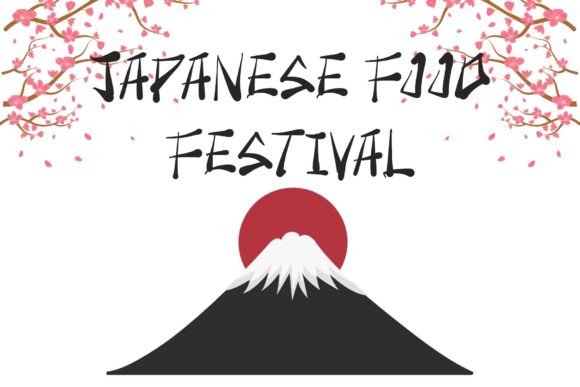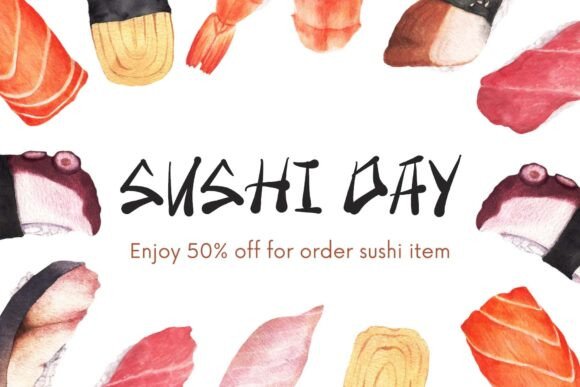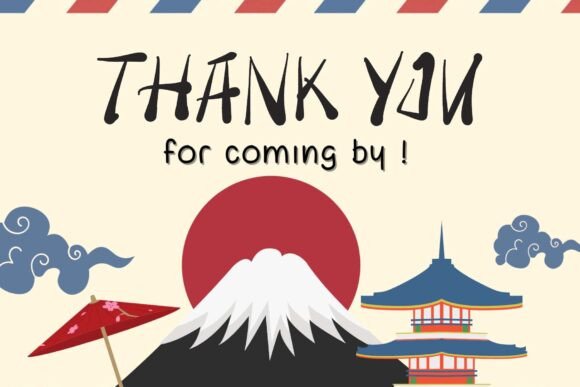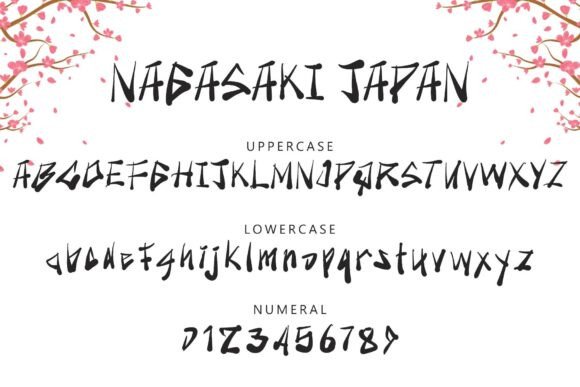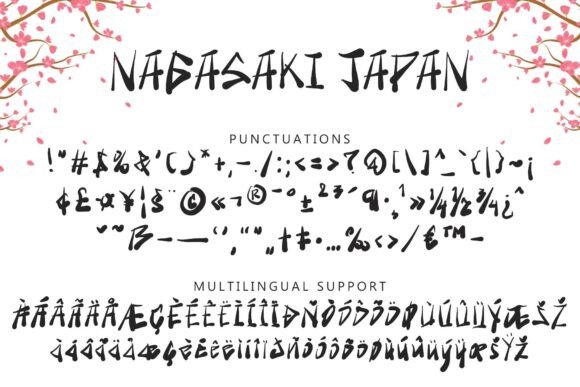
Introduction to Nagasaki Japan Font
Have you ever stumbled upon a beautiful, hand-painted sign in a quaint Japanese restaurant and wondered how to capture that essence in your design project? The Nagasaki Japan Font is a high-quality, elegant font that can bring a touch of Japanese culture to your creative project.
Perfect for designers looking to add a unique flair to their work, the Nagasaki Japan Font is a valuable design resource that offers a wide range of characters, including capital letters, lowercase letters, numbers, and punctuation. With its multilingual support, you can use it for business branding, movie titles, and more. Whether you’re working on a free download or a commercial project, this font is sure to make a lasting impression.
Whether you’re a seasoned designer or just starting out, the Nagasaki Japan Font is a great addition to your design toolkit, offering a transparent background and a range of design possibilities.
Nagasaki Japan Font
- High-quality design resource ideal for a creative project, offering a unique blend of traditional and modern elements.
- Unique characteristics include a mix of kanji and Latin characters, making it suitable for projects that require a blend of Eastern and Western languages.
- Perfect for designers looking for a distinctive and eye-catching font to elevate their creative project, whether it’s a logo, poster, or brochure.
Honest Review: Nagasaki Japan Font
As a designer, I’m always on the lookout for unique and high-quality design resources to elevate my creative projects. Recently, I stumbled upon the Nagasaki Japan Font, and I’m excited to share my honest review.
- ✨ Beautiful, authentic Japanese-inspired design aesthetic
- ✨ High-quality typography that’s perfect for branding and packaging projects
- ⚠️ Limited character set, which might be a concern for designers who need to typeset extensive text
- ⚠️ Not all characters have a transparent background, which might affect design cohesion
Overall, I’m impressed with the Nagasaki Japan Font’s unique design and high-quality typography. While it has some limitations, it’s still a valuable design resource for designers looking to add a touch of Japanese flair to their creative projects.
Nagasaki Japan Font
The Nagasaki Japan Font is perfect for a wide range of design projects, including logos, business cards, posters, and presentations. Its unique and elegant design makes it an excellent choice for any creative project that requires a touch of Japanese flair.